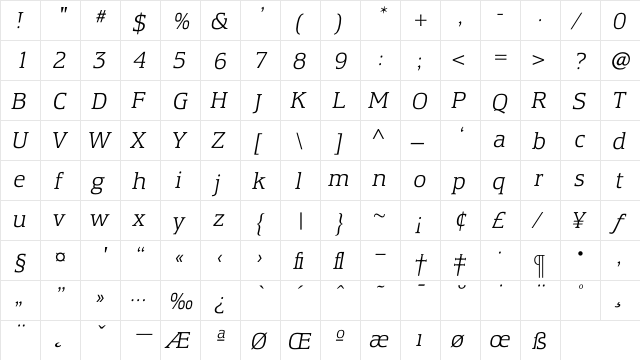
EquestrienneLightItalic Regular Font Preview
Design Context for EquestrienneLightItalic Typeface
EquestrienneLightItalic is a composed and adaptable typeface that performs quietly and consistently across a wide range of design contexts. Its italic angle brings a sense of urgency and motion to the letterforms. The delicate stroke weight brings airiness and refinement to layouts.
Pro Tip: Try EquestrienneLightItalic for annotation and caption copy alongside an upright companion — the contrast in angle creates a dynamic but ordered typographic system.